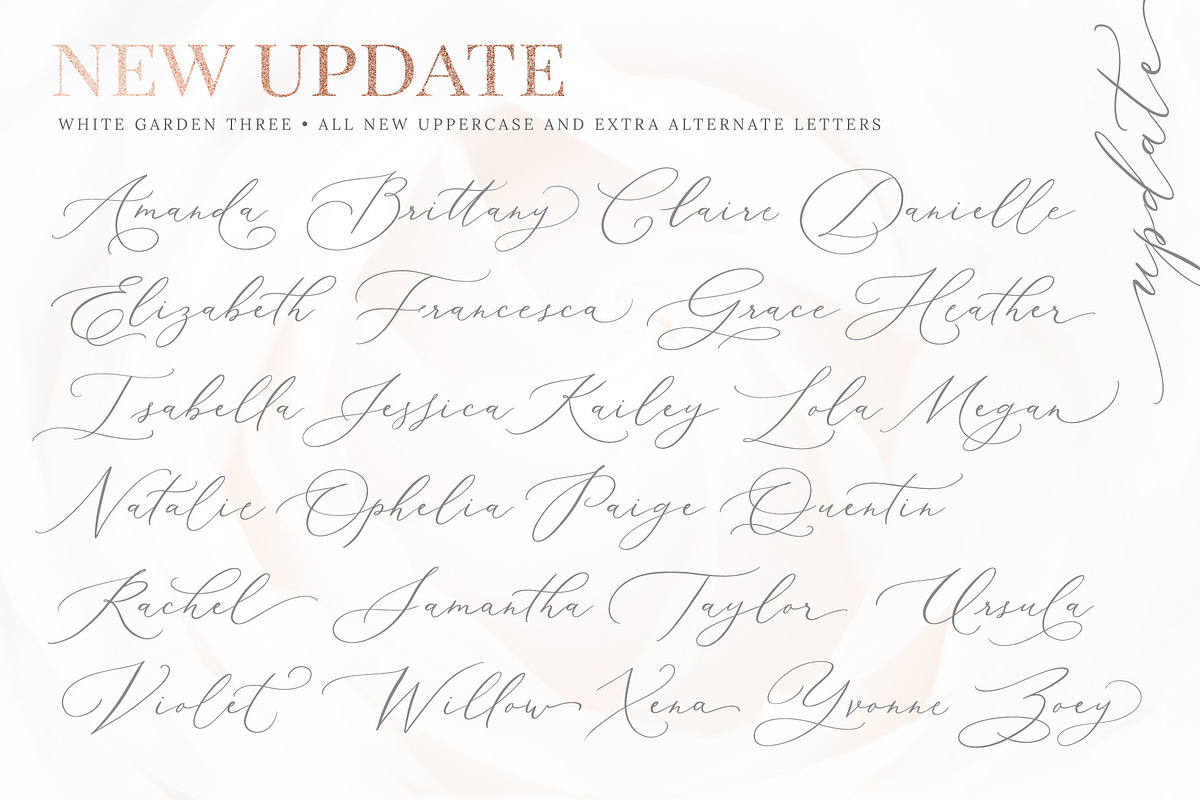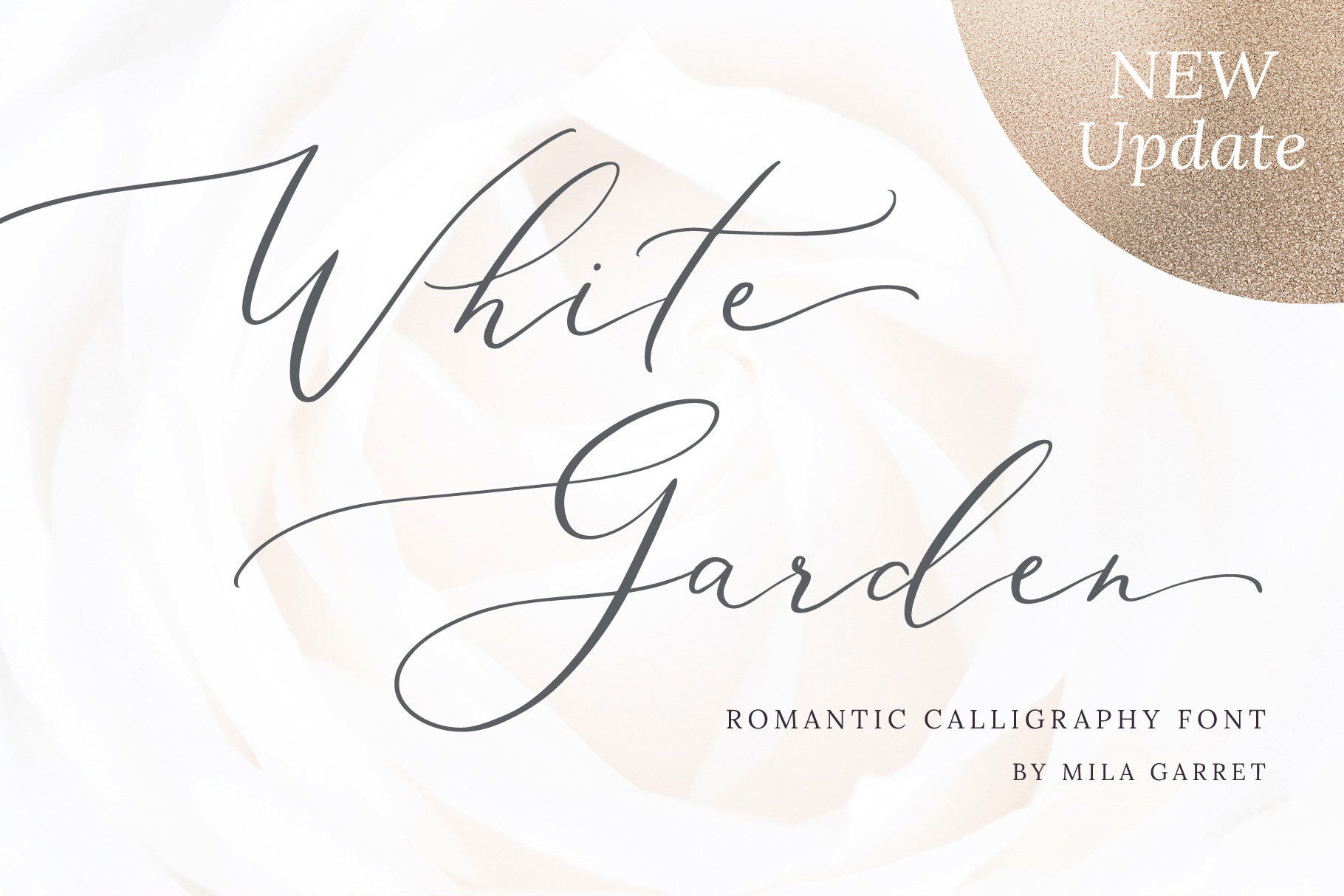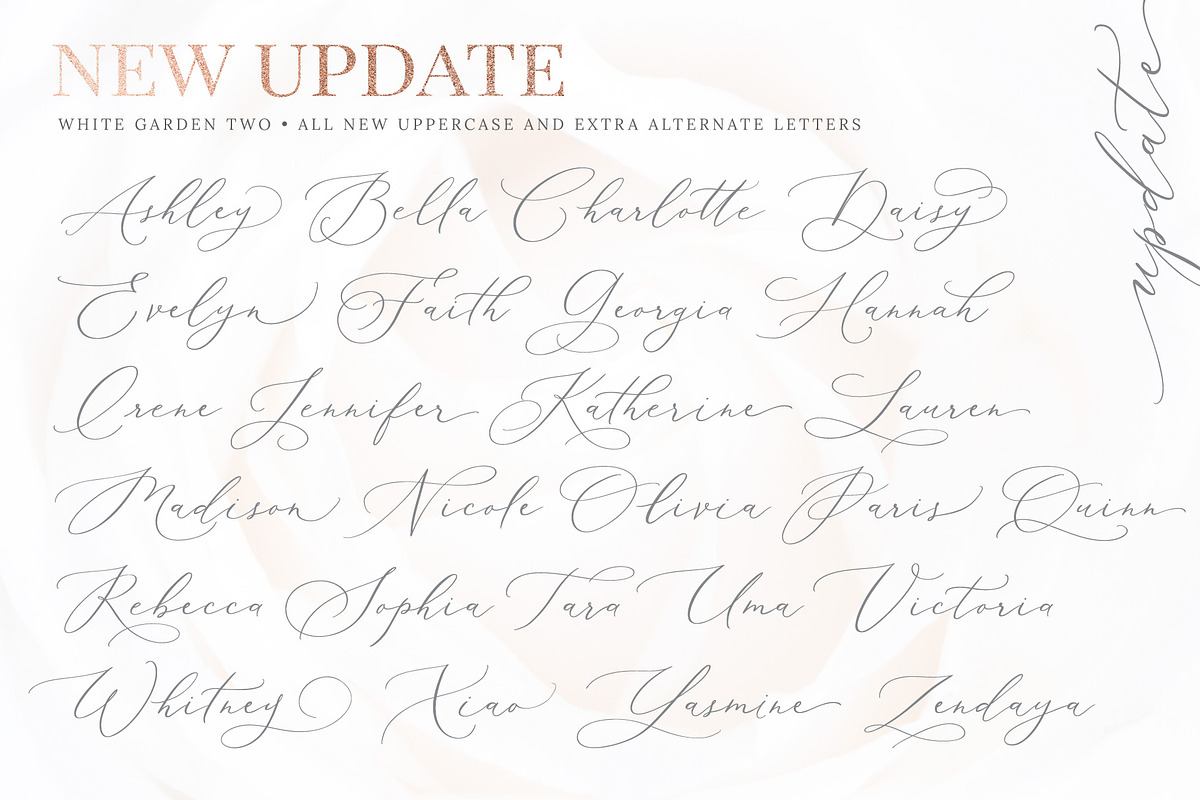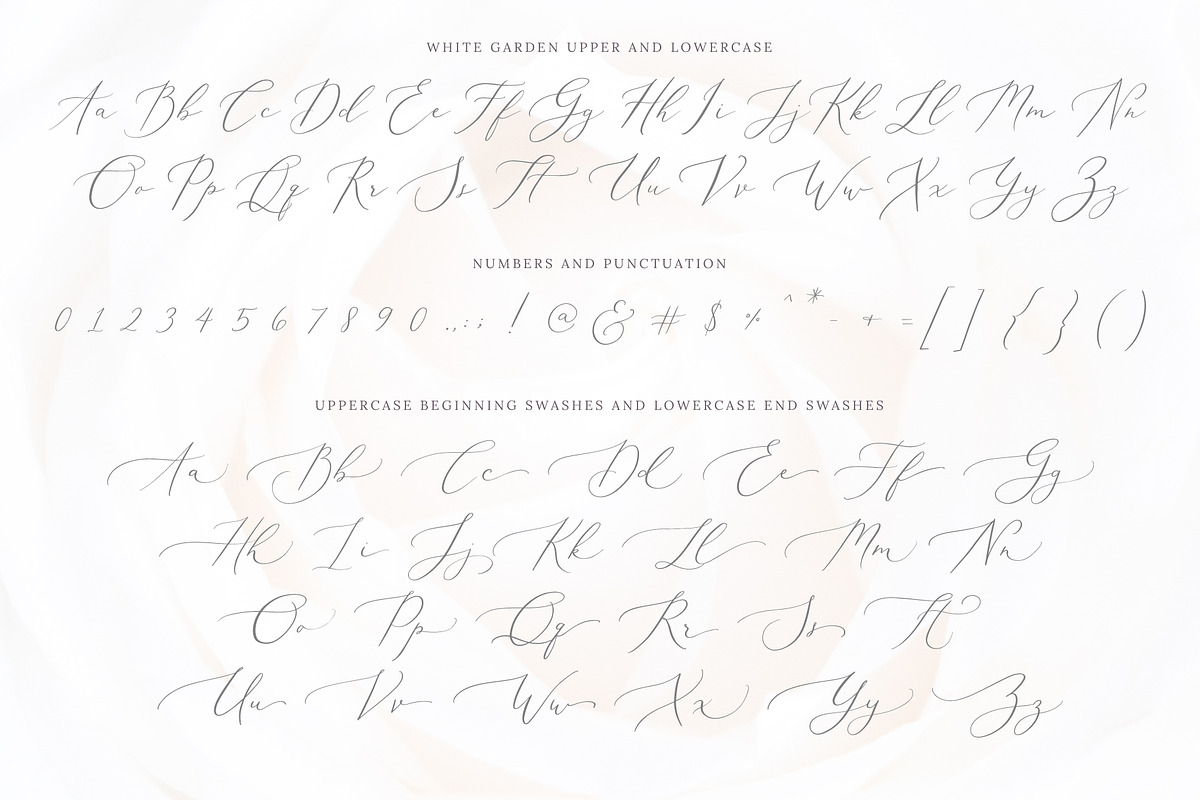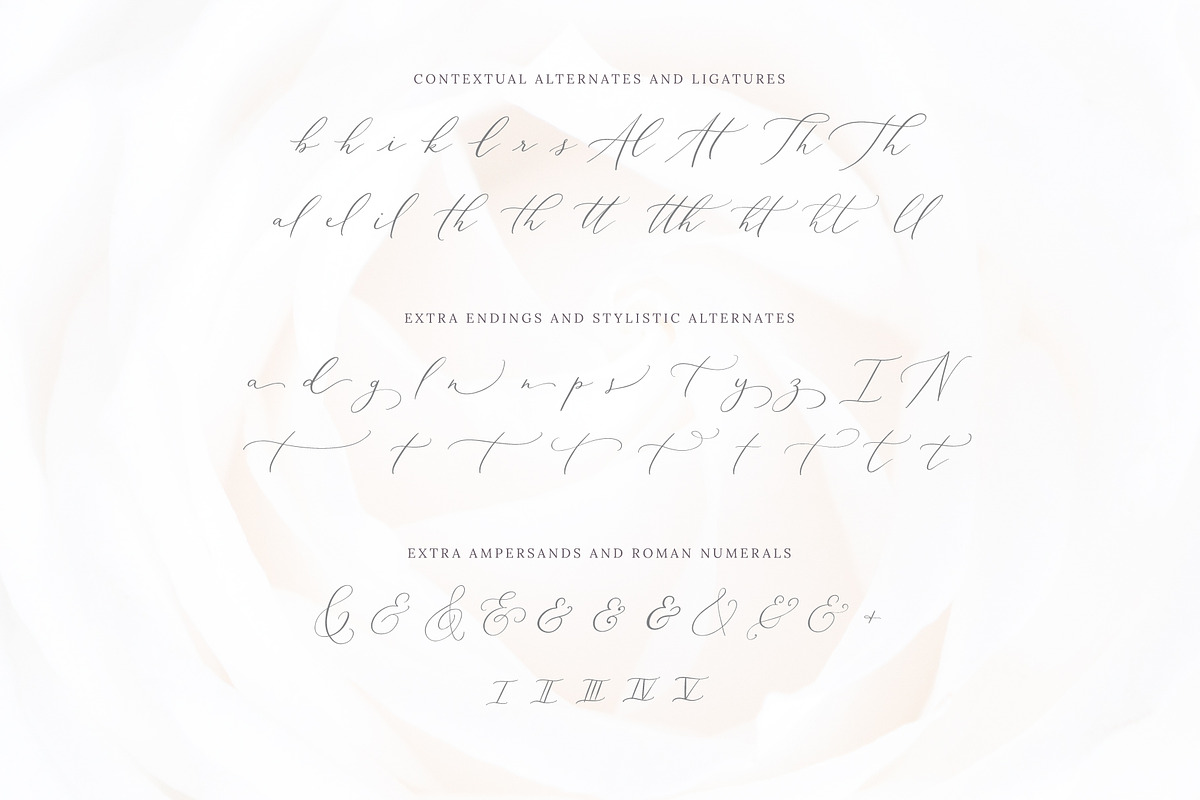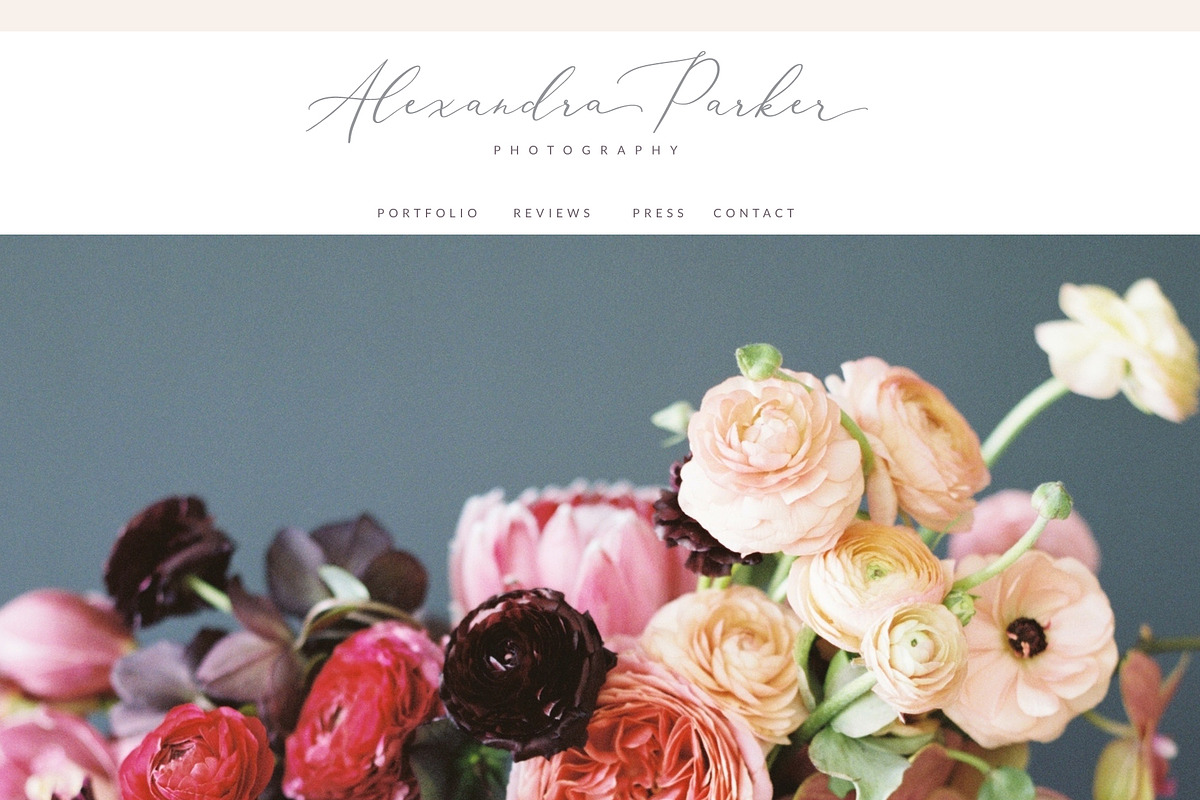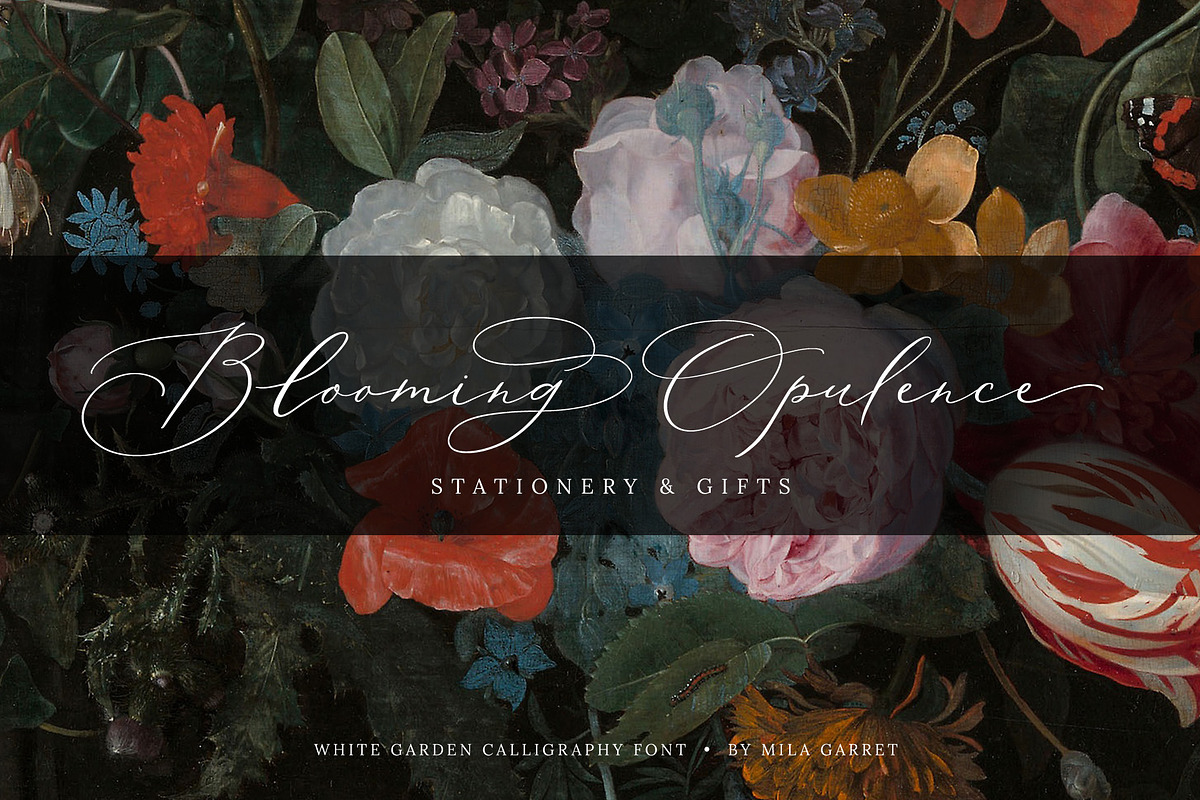
White Garden Calligraphy Logo Font
Introducing a new beautiful calligraphy font, White Garden! White Garden is perfect for elegant logos, upscale packaging, wedding stationery, websites, and any other projects requiring a handwritten and luxurious touch. A wide range of swashes and alternates are included so that you can give your logo or name a custom, hand-calligraphy look.
White Garden Features
- Full Set of standard alphabet and punctuation
- Two extra sets of alternate capitals
- Extra set of beginning swashed capitals
- Extra set of beginning swashed lowercase
- Extra set of ending swashed lowercase
- Ligatures and contextual alternates
- Extra stylistic alternates
- Standard and Wide version
- 11 Bonus Ampersand styles (great for logos) and extra Numerals for names (example: John Smith III)
- Multilingual Support (See below)